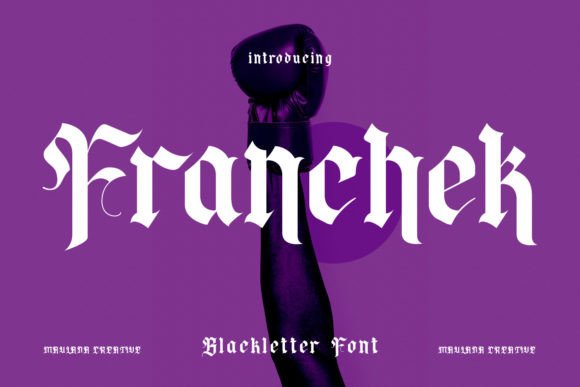
Dive into the captivating world of Franchek, where elegance and innovation intertwine. This extraordinary blackletter font family, meticulously crafted by Maulana Creative, is a treasure trove of modern typographic artistry.
Franchek's allure lies in its intricate strokes, exuding both strength and grace. Its medium-high contrast lends a touch of sophistication, while the playful ligatures and alternates ignite your creativity, empowering you to produce truly captivating work.
Whether you're crafting a striking logo, captivating social media posts, or designing eye-catching movie or book titles, Franchek effortlessly adapts to your vision. Its versatility extends to both short and long text, making it an ideal companion for primary or secondary text, complementing sans or serif fonts with panache.
Imagine the allure of a logo adorned with Franchek's bold strokes, instantly capturing attention and leaving an unforgettable impression. Envision social media posts that leap off the screen, adorned with Franchek's elegant curves, enticing followers to engage with your content.
For movie titles, Franchek's cinematic flair evokes a sense of grandeur, transporting audiences into the heart of the story. Book covers adorned with Franchek's intricate details promise an immersive reading experience, captivating readers from the very first glance.
But Franchek's versatility doesn't end there. Its seamless integration with sans or serif fonts opens up endless possibilities for creative combinations. Unleash your imagination and let Franchek be the cornerstone of your typographic masterpieces.
With Franchek as your artistic ally, you'll discover a boundless realm of creativity, where every design project becomes an exquisite work of art. Embrace the allure of this modern blackletter font and let your imagination soar to new heights.